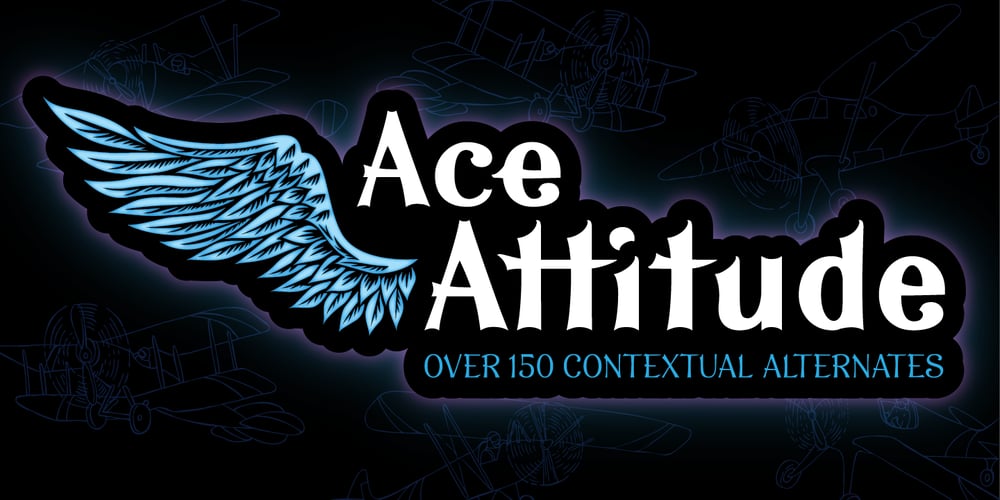
Ace Attitude Font Family was designed by Denise Even and published by Limelight Artistry. Ace Attitude contains 8 styles and family package options. Ace Attitude is a friendly, readable font with character and flair. When I started designing this font I wanted something that was readable as well as interesting and appealing. Something that showed character. When I look at this font now I think of an old fashioned aviator. One of those poeple that likes to show off and have fun but can still follow rules.This font is perfect for logo’s and branding. But its also very versatile would be great in things like magazines, posters, packaging, billboards, etc. Ace Attitude has an impressive 179 Contextual alternates. These are like ligatures, but oh so much better. These contextual alternates will give any project that personal touch – all without any extra effort. All you have to do is make sure that they are turned on in your program. Unfortunately, these do not yet show up in the sample text. To help with this I have created a demo version of the font so that you can still try it out before you spend the money. Ace Attitude also has Over 800 glyphs and includes features such as small caps, ordinals, ligatures, fractions, tabular numbers, proportional numbers, subscript, superscript, numerators and denominators.